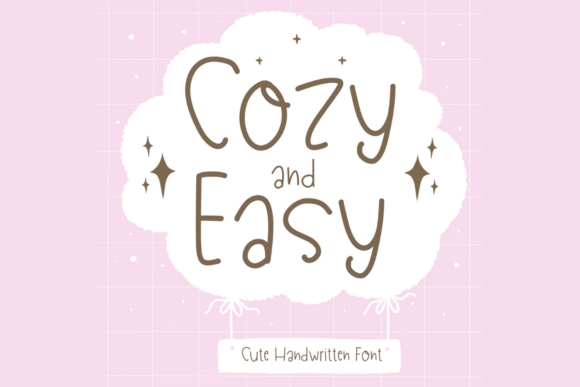
Cozy and Easy Font: Adding a Touch of Warmth and Simplicity to Your Designs
Are you looking for a font that can add a touch of warmth and simplicity to your designs? Look no further than the Cozy and Easy font. This charming handwritten font is perfect for creating inviting posters, heartfelt cards, relaxed branding, or any project that calls for a homey vibe. In this article, we’ll explore the features and benefits of the Cozy and Easy font and how it can elevate your designs to the next level.
What is Cozy and Easy Font?
Cozy and Easy font is a type of handwritten font that is designed to evoke a sense of warmth and comfort. Its smooth curves and casual style make it perfect for creating designs that feel approachable and inviting. The font is reminiscent of handwritten notes and letters, making it ideal for projects that require a personal touch.
Features of Cozy and Easy Font
The Cozy and Easy font has several features that make it stand out from other fonts. Some of its key features include:
- Smooth Curves: The font has smooth, flowing curves that give it a natural and effortless look.
- Casual Style: The font has a casual, laid-back style that makes it perfect for creating relaxed and inviting designs.
- Handwritten Look: The font has a handwritten look that makes it feel personal and approachable.
- Easy to Read: The font is easy to read, even at small sizes, making it perfect for body text and captions.
Benefits of Using Cozy and Easy Font
There are several benefits to using the Cozy and Easy font in your designs. Some of the benefits include:
- Warm and Inviting: The font adds a touch of warmth and simplicity to your designs, making them feel more inviting and approachable.
- Perfect for Branding: The font is perfect for creating relaxed and casual branding that feels personal and authentic.
- Versatile: The font is versatile and can be used for a wide range of projects, from posters and cards to social media graphics and website headers.
- Easy to Pair: The font is easy to pair with other fonts, making it perfect for creating multi-font designs.
Use Cases for Cozy and Easy Font
The Cozy and Easy font is perfect for a wide range of projects, including:
- Posters: Create inviting posters for events, promotions, or announcements.
- Cards: Design heartfelt cards for special occasions, such as birthdays, weddings, or holidays.
- Branding: Create relaxed and casual branding for your business or organization.
- Social Media Graphics: Design social media graphics that feel personal and approachable.
- Website Headers: Use the font for website headers to add a touch of warmth and simplicity to your website.
Tips for Using Cozy and Easy Font
Here are some tips for using the Cozy and Easy font in your designs:
- Use it for Body Text: Use the font for body text to add a touch of warmth and simplicity to your designs.
- Pair it with Other Fonts: Pair the font with other fonts to create multi-font designs that feel cohesive and visually appealing.
- Experiment with Colors: Experiment with different colors to find the perfect combination that complements your design.
- Keep it Simple: Keep your design simple and clean to let the font shine.
In conclusion, the Cozy and Easy font is a charming handwritten font that adds a touch of warmth and simplicity to your designs. Its smooth curves and casual style make it perfect for creating inviting posters, heartfelt cards, relaxed branding, or any project that calls for a homey vibe. With its versatility, ease of use, and range of benefits, the Cozy and Easy font is a great addition to any designer’s toolkit.
- What is the Cozy and Easy font? The Cozy and Easy font is a charming handwritten font designed to evoke a sense of warmth and comfort.
- What are the features of the Cozy and Easy font? The font has smooth curves, a casual style, a handwritten look, and is easy to read.
- What are the benefits of using the Cozy and Easy font? The font adds a touch of warmth and simplicity to your designs, is perfect for branding, versatile, and easy to pair with other fonts.
- What are some use cases for the Cozy and Easy font? The font is perfect for posters, cards, branding, social media graphics, and website headers.